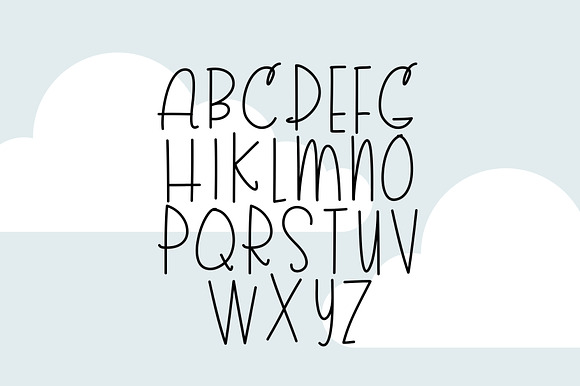
Take Flight Font + Extras
Take Flight Font and Vacay Stickers. Cute and Quirky, perfect for graphic tees and invites. Create your next project with this adorable font and fun vacay vibe digital sticker elements.
Take Flight Font + Extras by Jande Summer fits naturally into Branding, posters, packaging, typography.